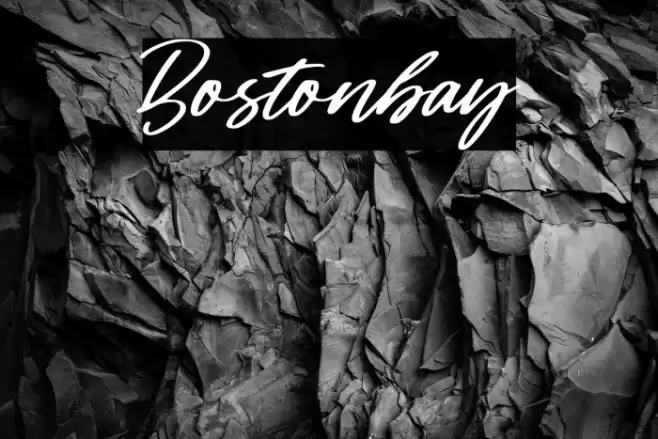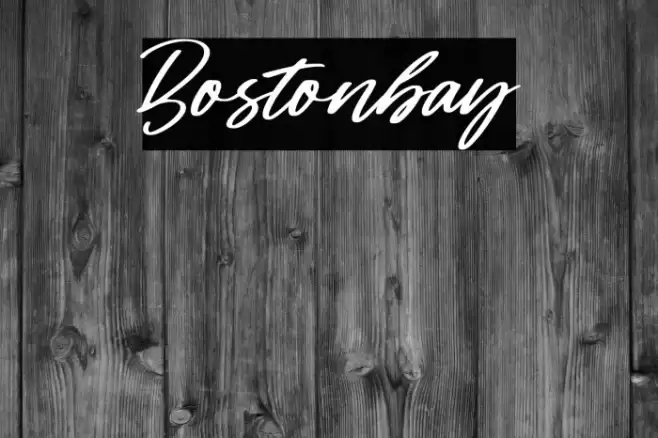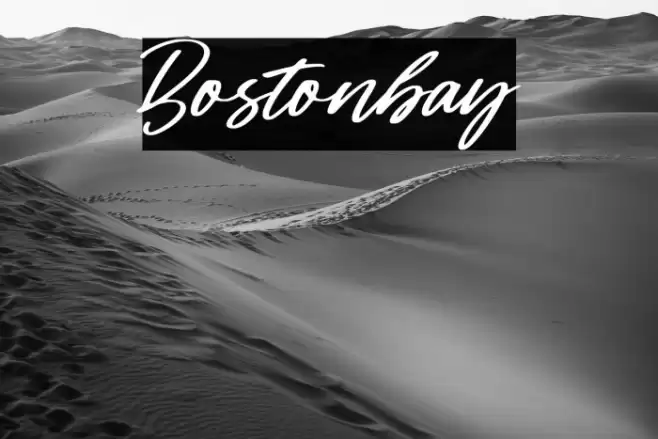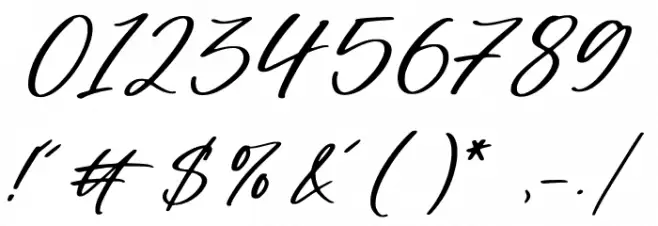
Bostonbay Font
Bostonbay Description
This font exudes a dynamic and elegant script style, characterized by its fluid and cursive letterforms. The uppercase letters are tall and slightly slanted, giving a sense of motion and grace. The lowercase letters maintain a consistent flow, with smooth connections between characters, enhancing readability while retaining a handwritten charm. The numerals are well-proportioned and align seamlessly with the overall aesthetic. Special characters are thoughtfully designed, complementing the script style without disrupting the visual harmony. This font's overall appearance is both sophisticated and approachable, making it suitable for a variety of creative applications.
A dynamic and elegant script font with fluid, cursive letterforms from Uncategorized fonts.
- Proposed Projects: Ideal for wedding invitations, branding, greeting cards, and elegant packaging designs.
- Overall Style: Elegant, Handwritten
- Use Case: Logos, Invitations, Branding